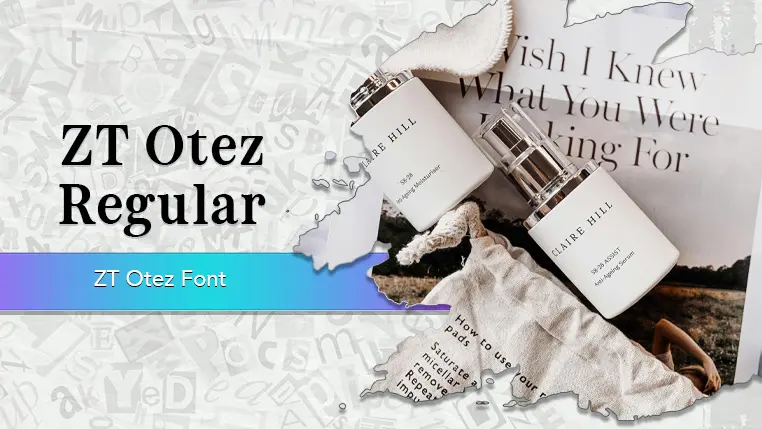
The ZT Otez font family may be ideal for you if you enjoy working on an artistic design project. The lively, expressive look of this typeface, which was created by Zelow Type, makes it ideal for Luxury Branding and Packaging. Inspired by classic editorial lettering, ZT Otez is an excellent choice for magazines, newspapers, and books. It's highly legible and can be used for both captivating headlines and clean body text, creating a cohesive and polished look. The different weights and widths, especially the bold and condensed styles, make it ideal for creating impactful headlines and taglines on posters and in advertising campaigns. and other light-hearted visual projects.
Regular, Italic are the two primary font styles of the ZT Otez font family. You may build dynamic, visually appealing text layouts with the distinct flair that each style offers. With crisp, readable lines and a relaxed tone.